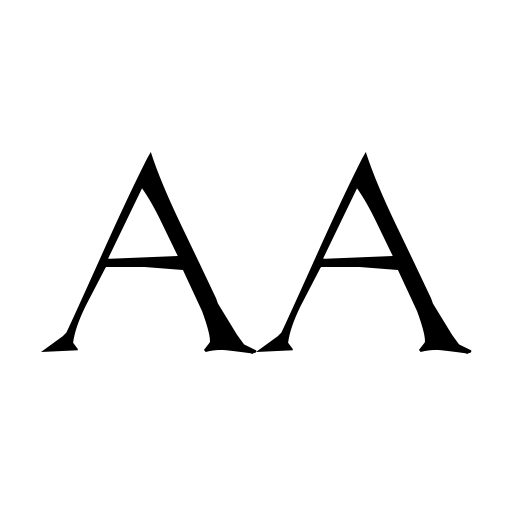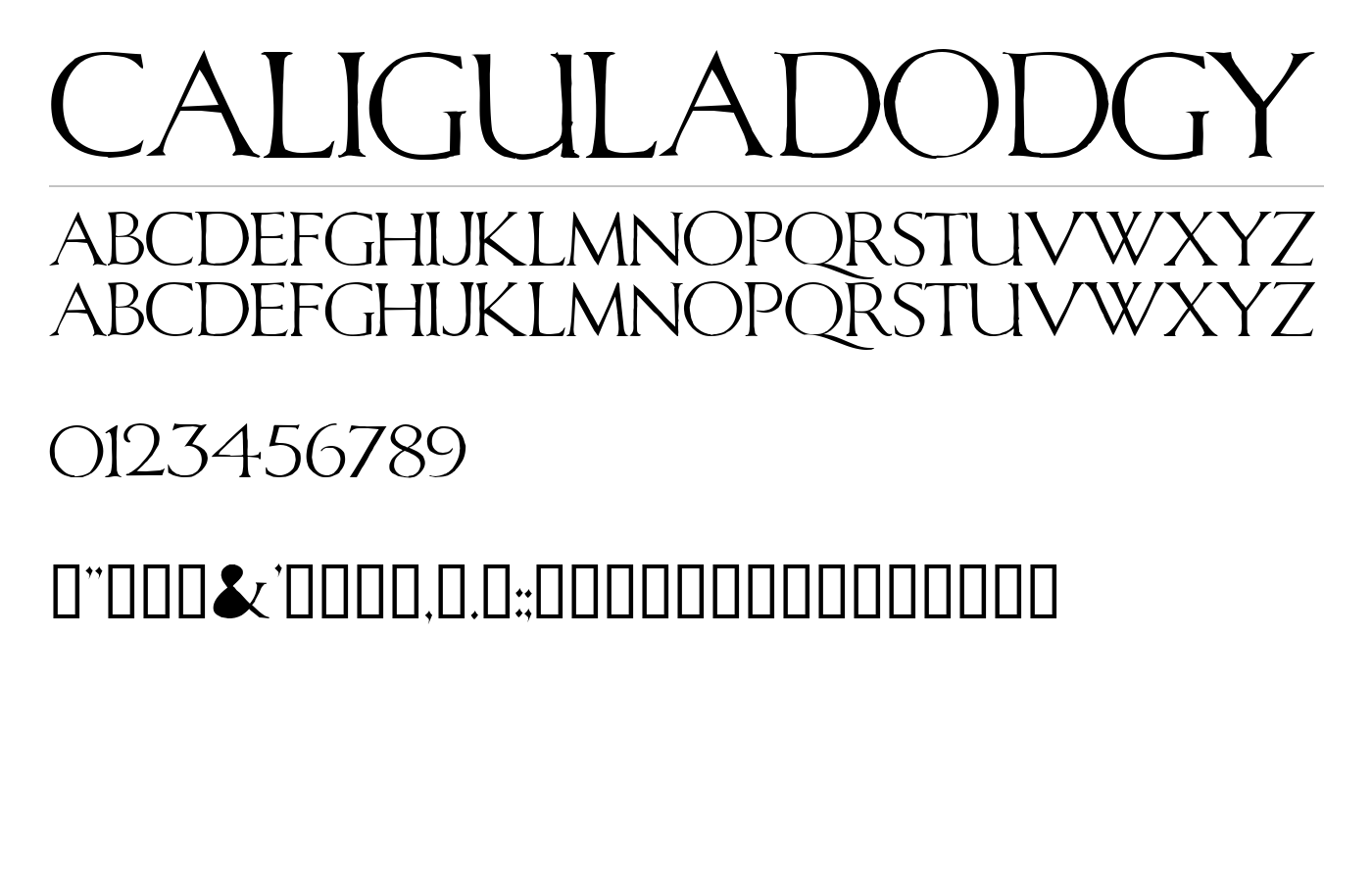
CaligulaDodgy is a slender serif font with a classic, slightly calligraphic feel, featuring elegant, sharp strokes and subtle contrast between thick and thin lines. Its narrow letterforms and refined serifs give it a sophisticated yet distinctive look, making it ideal for stylish headlines, luxury branding, and editorial projects that seek a touch of historic or artistic flair. This font works best where elegance and character are key, lending a timeless quality to designs without sacrificing readability.
CaligulaDodgy Font
About CaligulaDodgy Font